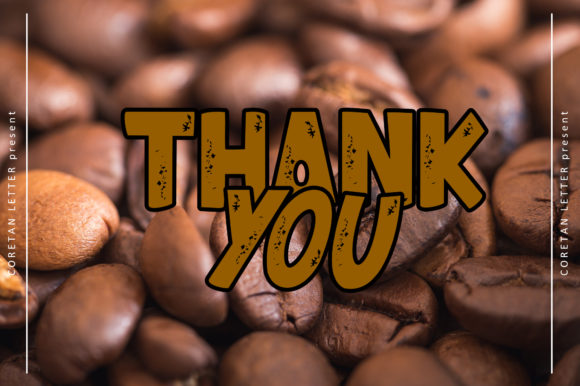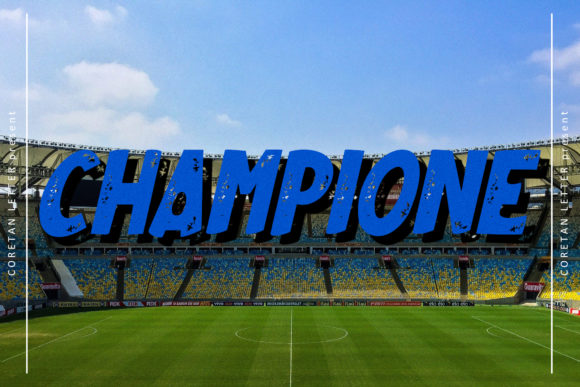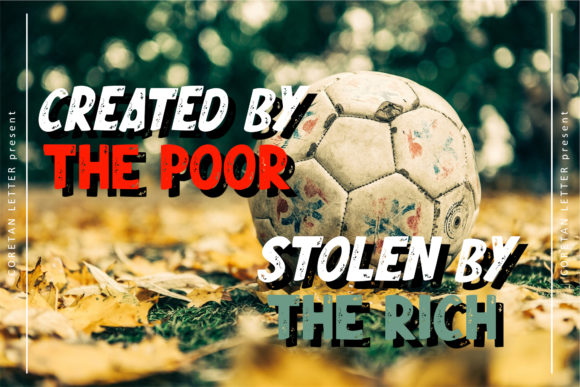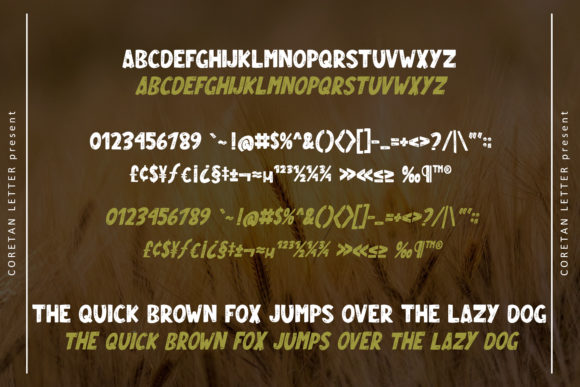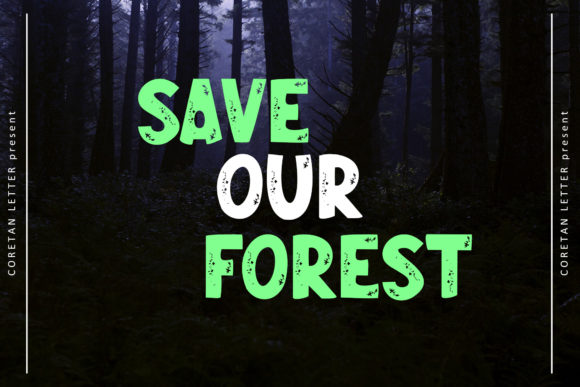
Introduction to Great Redemptions Font
Great Redemptions is a cool, bold and rough textured display font.
This font is suitable for designs such as t-shirts, sportswear, logos, advertisements, clothing, and more .
Key Features of Great Redemptions Font